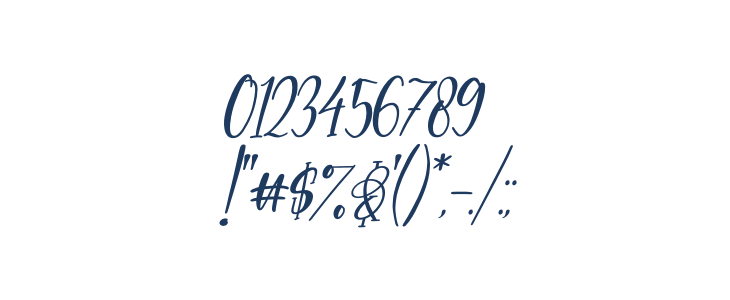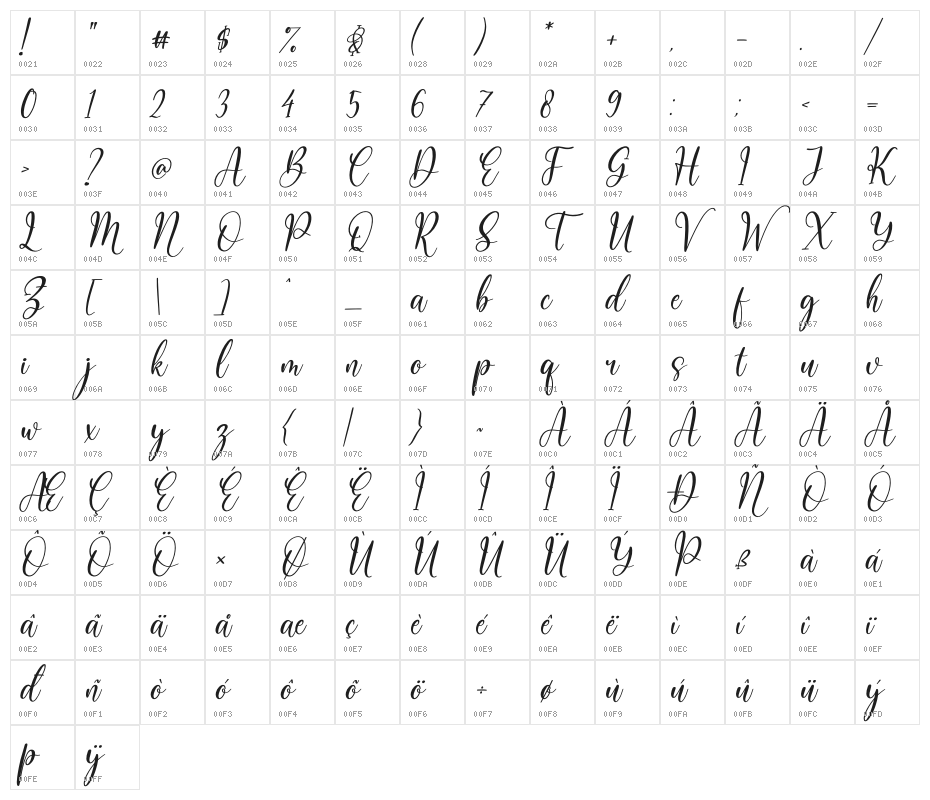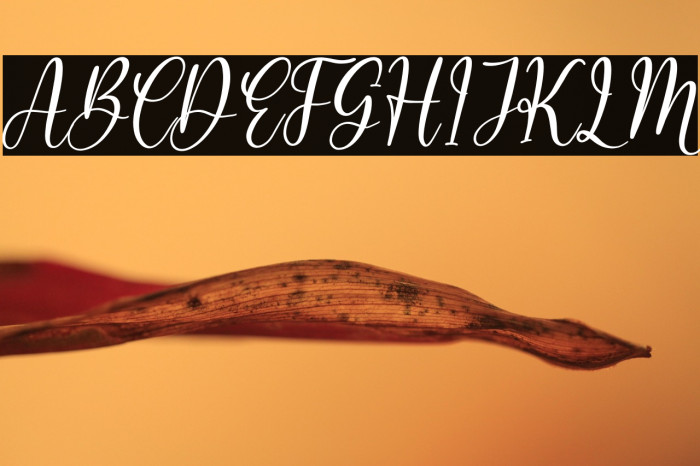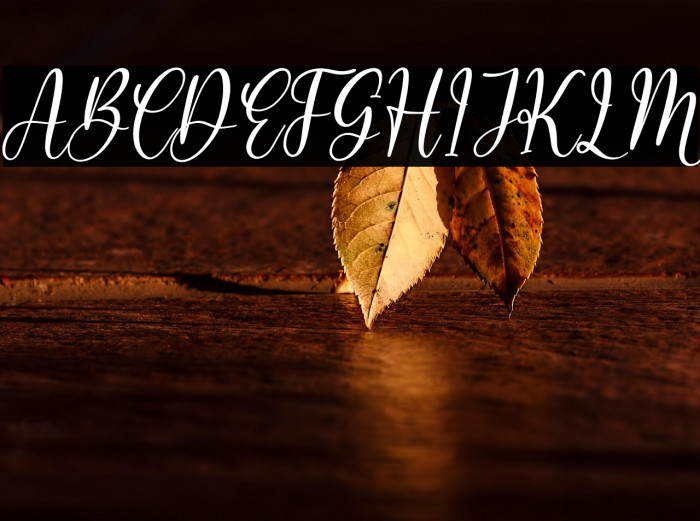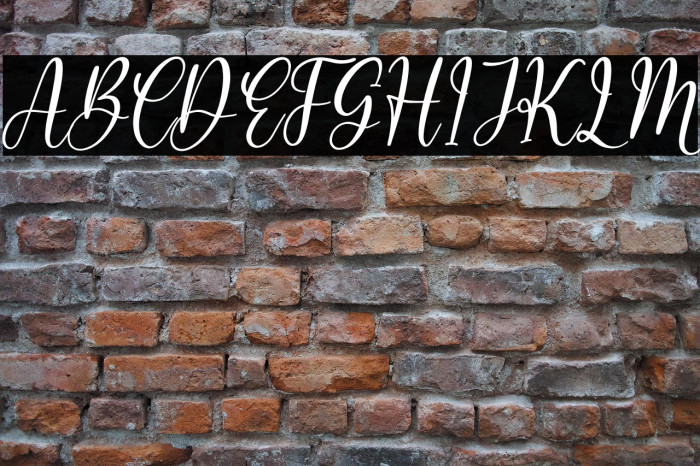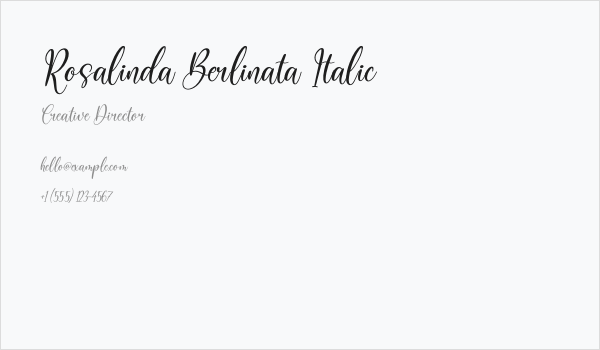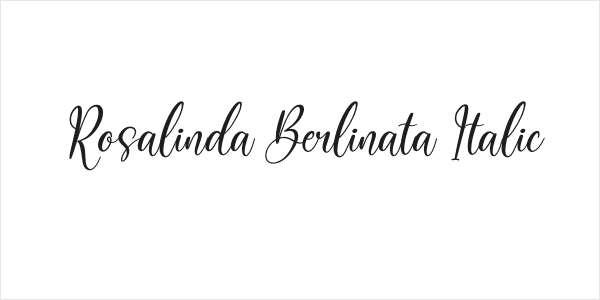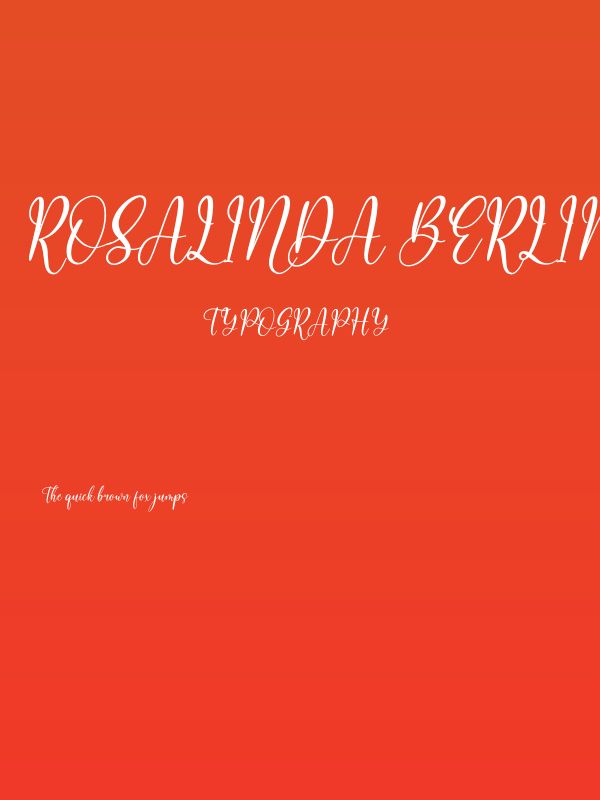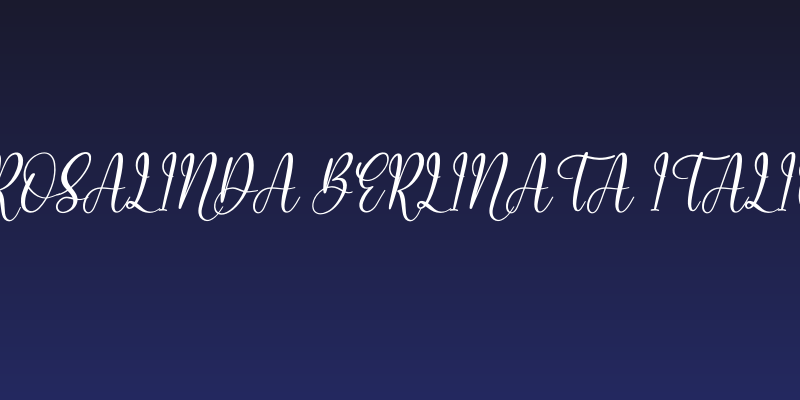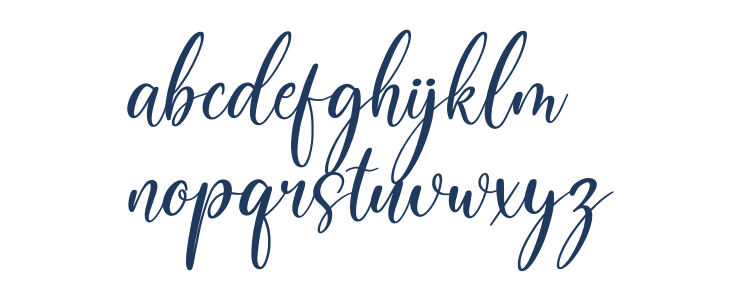
Rosalinda Berlinata Italic Font
Rosalinda Berlinata Italic Description
This elegant script font features a flowing, cursive style with a sophisticated flair. The letters are intricately connected, creating a seamless and harmonious appearance. The uppercase characters are tall and graceful, while the lowercase letters maintain a consistent rhythm with gentle curves and loops. The numerals are stylish and align well with the overall aesthetic. Special characters are thoughtfully designed to complement the script's fluidity. This font exudes a sense of elegance and refinement, making it ideal for projects that require a touch of class and sophistication.